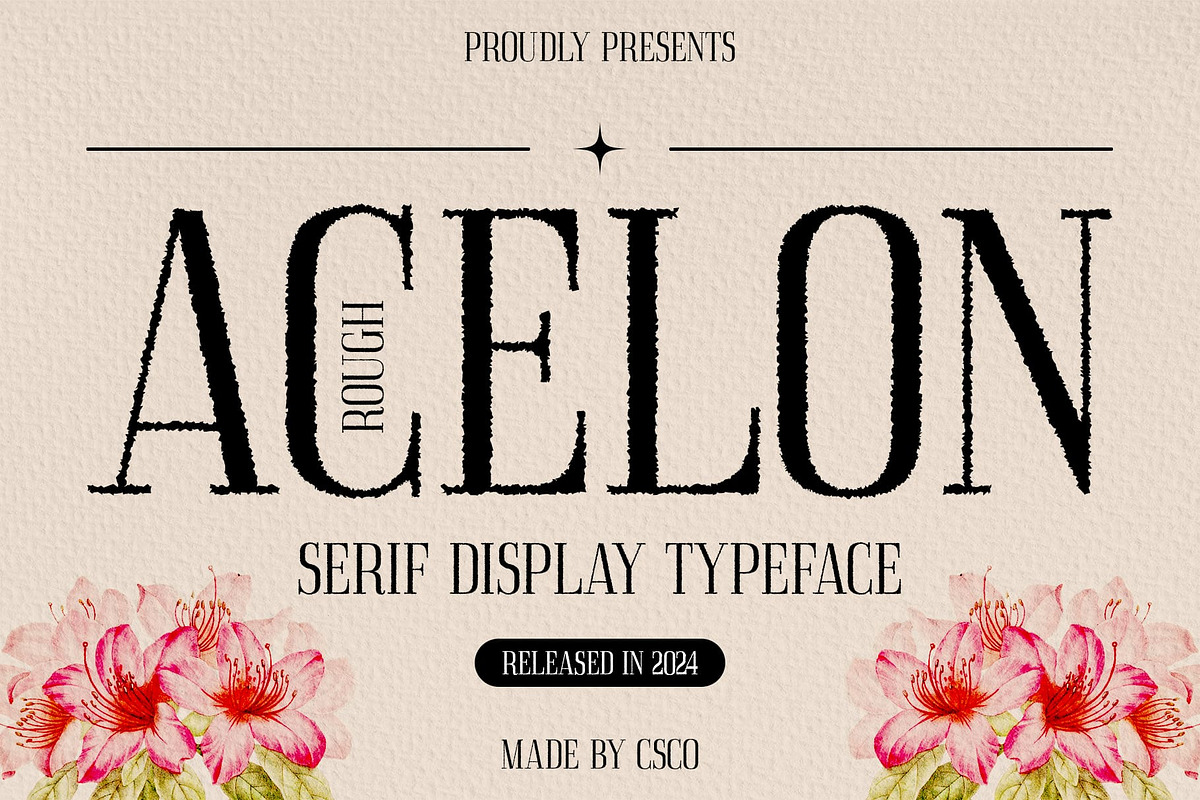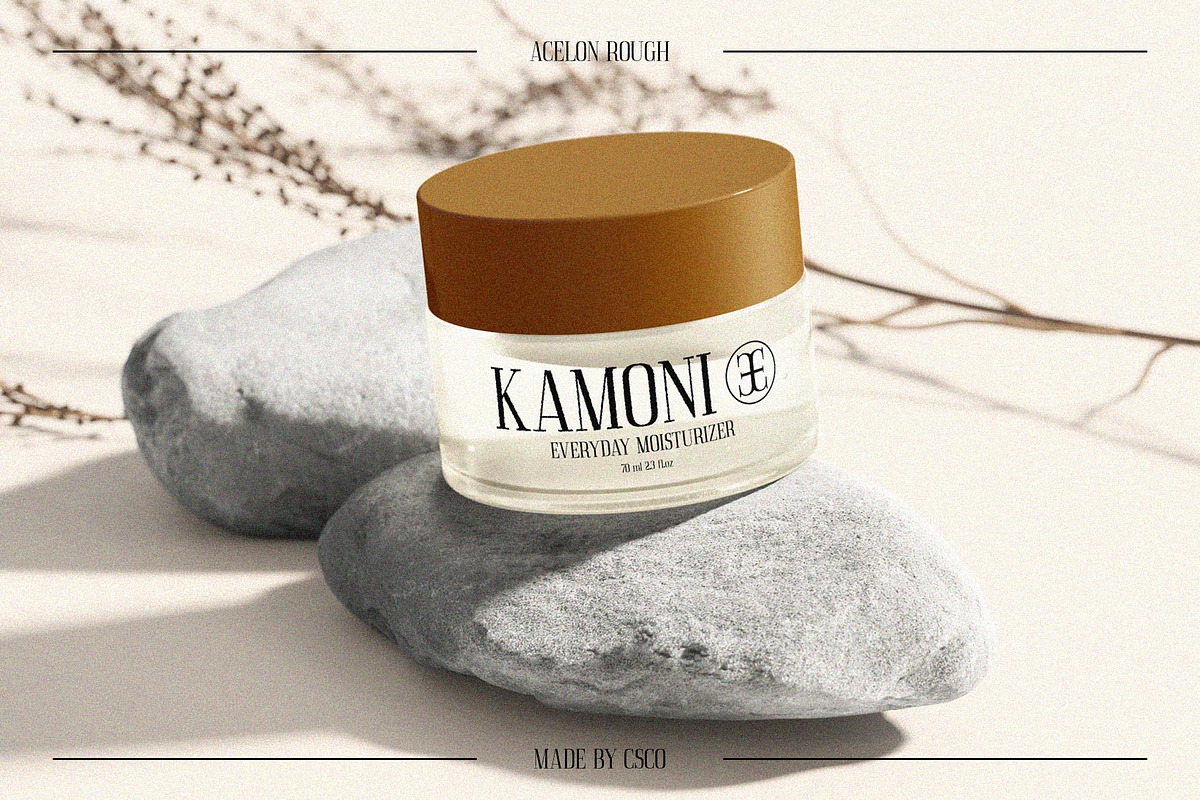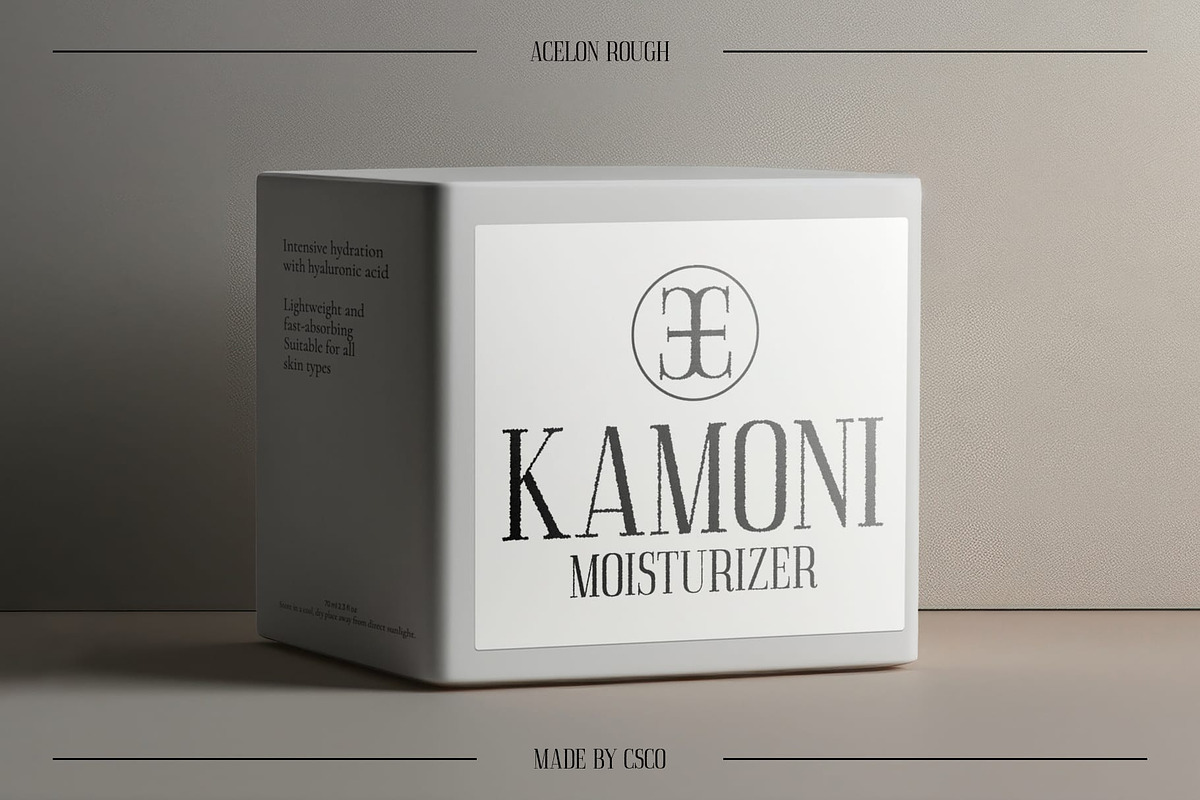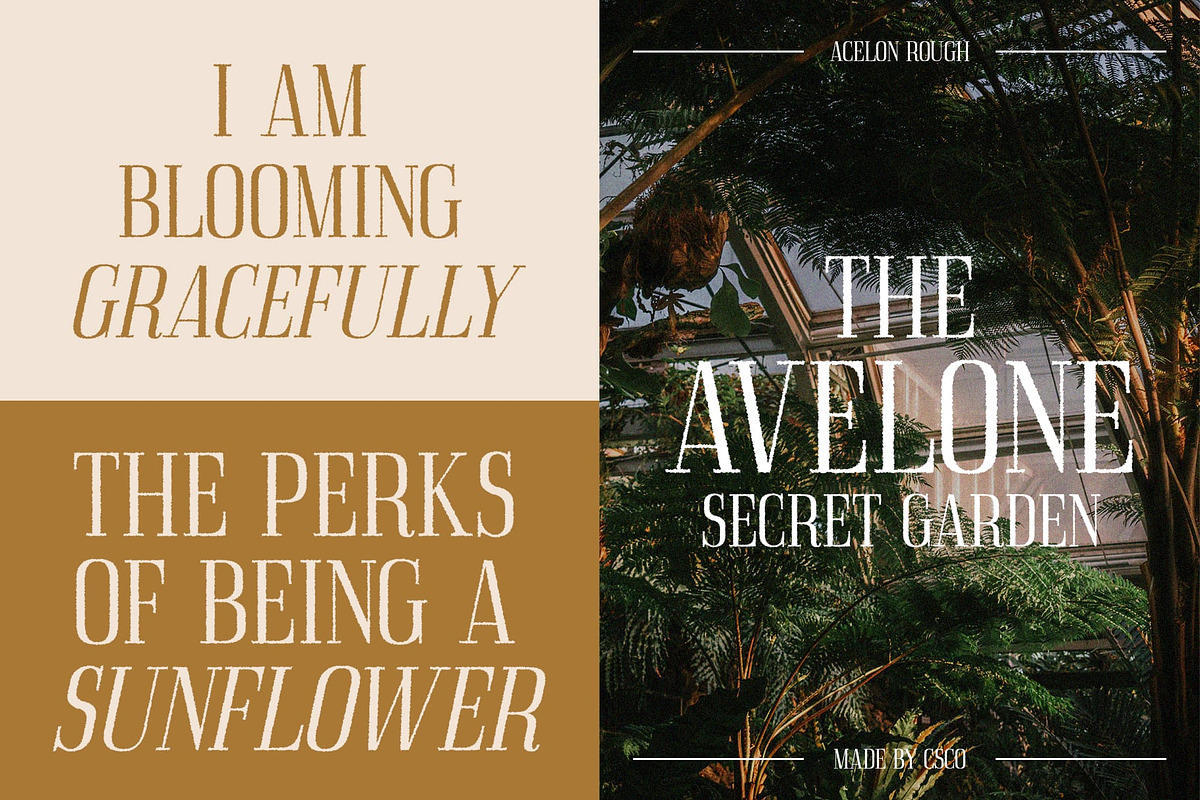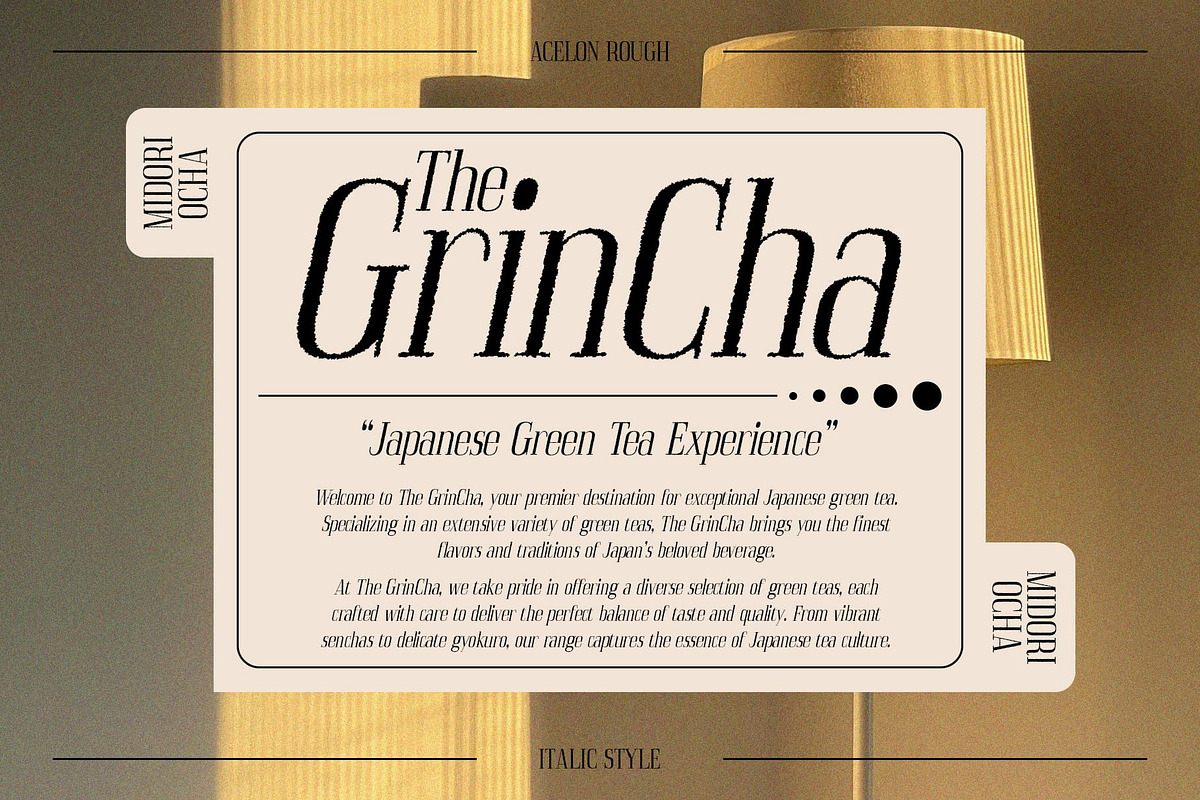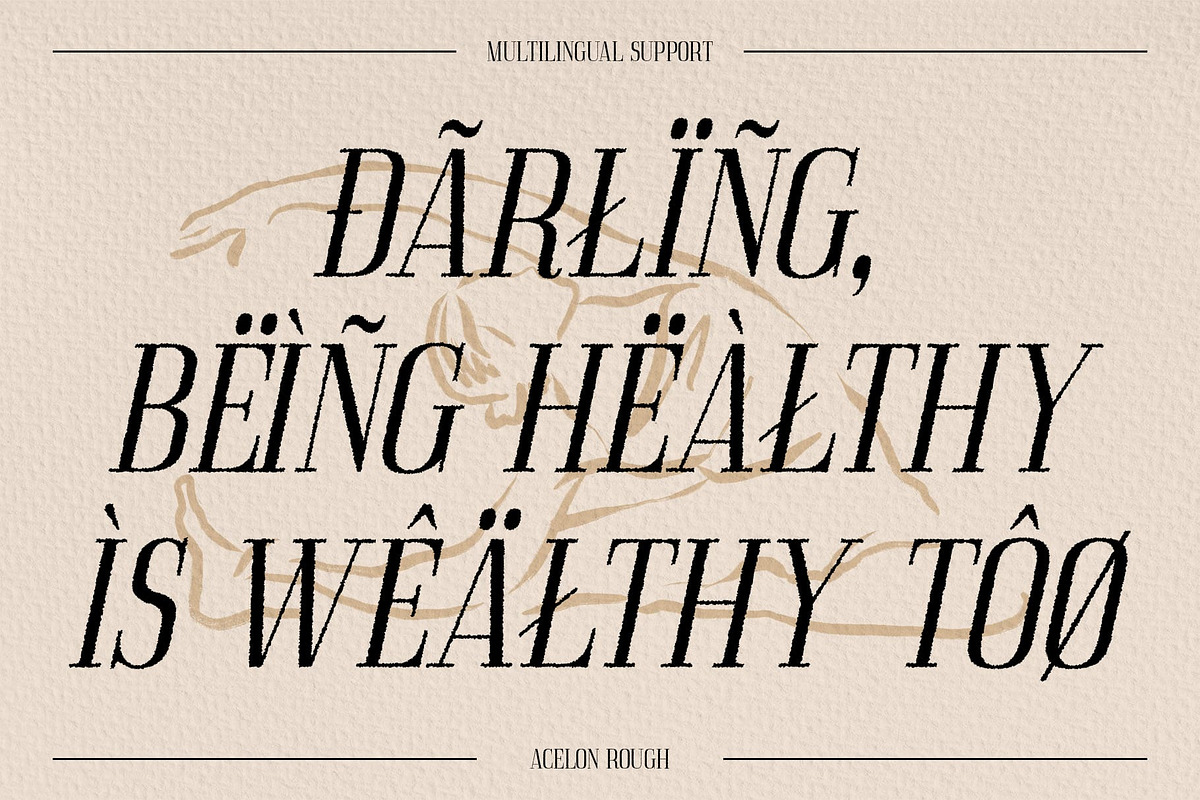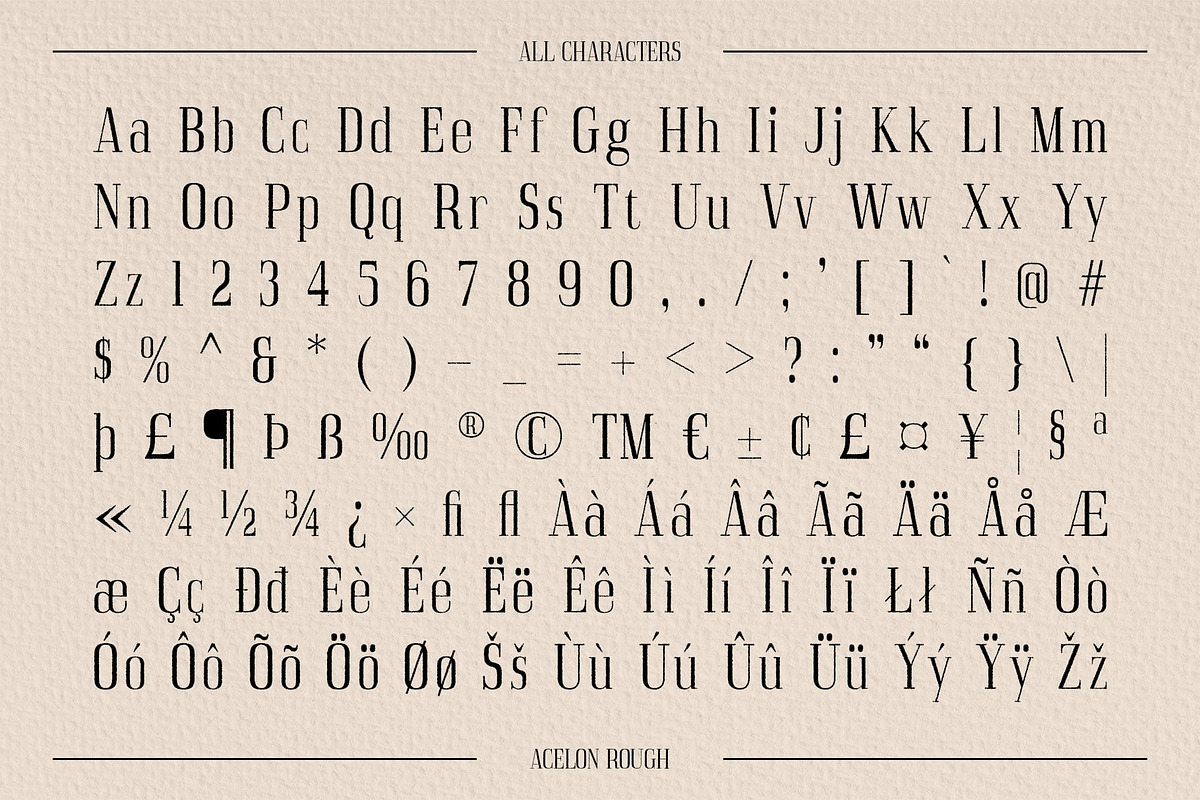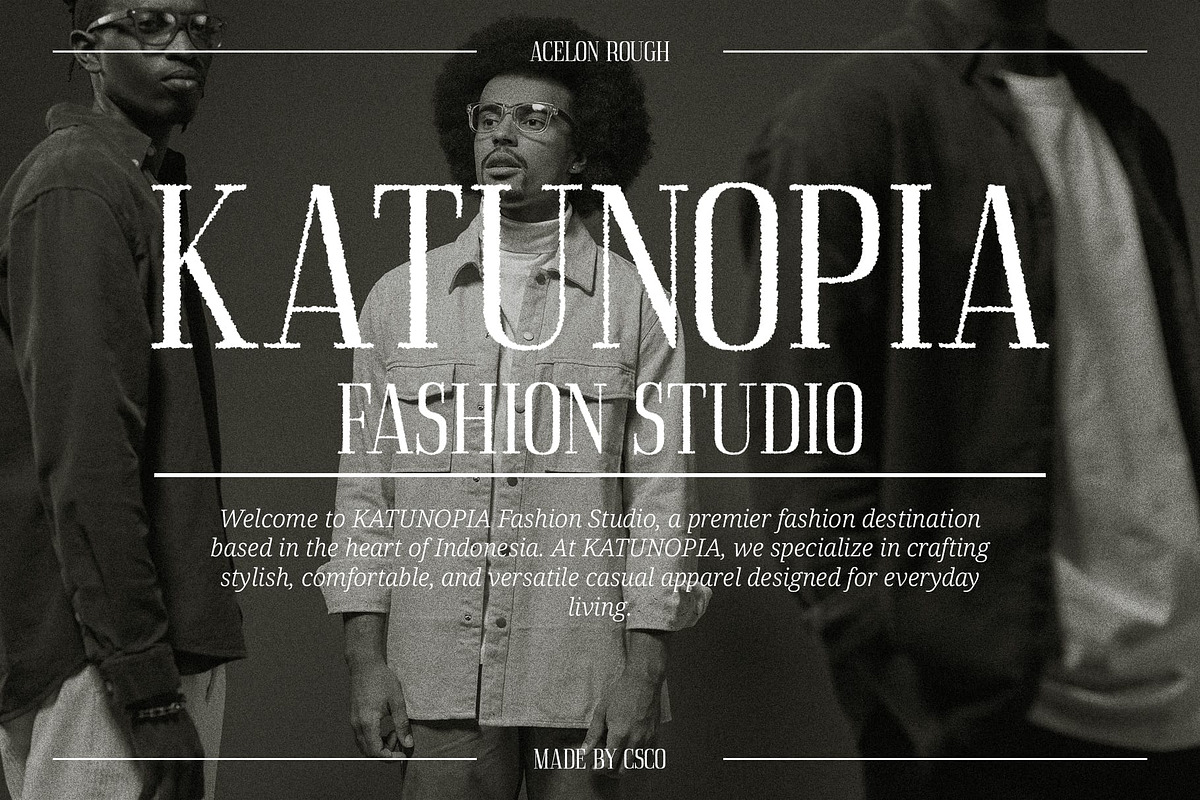
Acelon Rough
Acelon Rough – Condensed Serif Font with Classic Retro Vibe
Timeless Elegance with a Retro Touch Acelon Rough is a condensed serif font that combines classic retro elegance with a distinctive rugged texture. Its design evokes a sense of nostalgia, making it ideal for vintage-inspired projects that require a sophisticated, yet worn-in look. The condensed form adds a sleek and space-efficient quality, while the rough texture introduces a charmingly rugged character.
Rugged and Worn-In Appeal The font’s rough texture gives it a unique, weathered appearance, adding depth and personality to your designs. This vintage-inspired detail creates a visually engaging contrast, blending timeless elegance with a touch of rugged authenticity. Whether used in branding, packaging, or editorial design, Acelon Rough brings a touch of history and sophistication to any project.
Perfect for Nostalgic and Sophisticated Designs Acelon Rough is perfect for applications that demand a blend of classic charm and modern flair. Its retro vibe and textured finish make it well-suited for designs that aim to evoke a sense of the past while maintaining a refined and elegant appearance. Ideal for vintage-themed projects, this font adds a nostalgic touch while ensuring a stylish and sophisticated look.
- Acelon Rough Regular
- Acelon Rough Italic